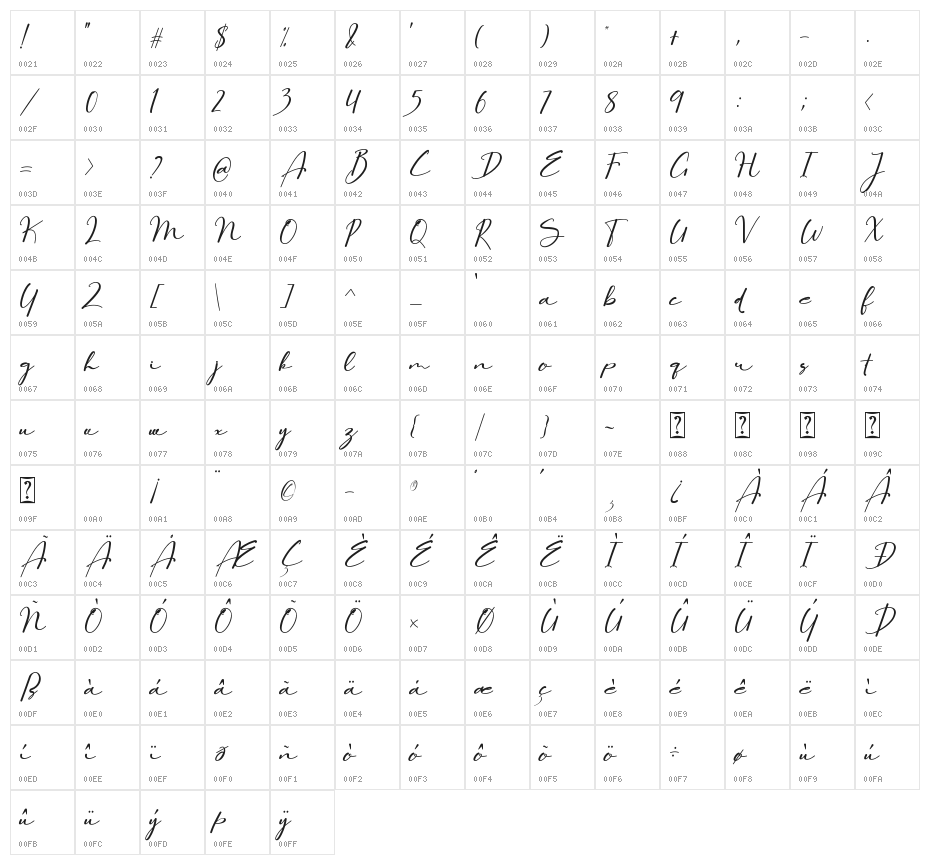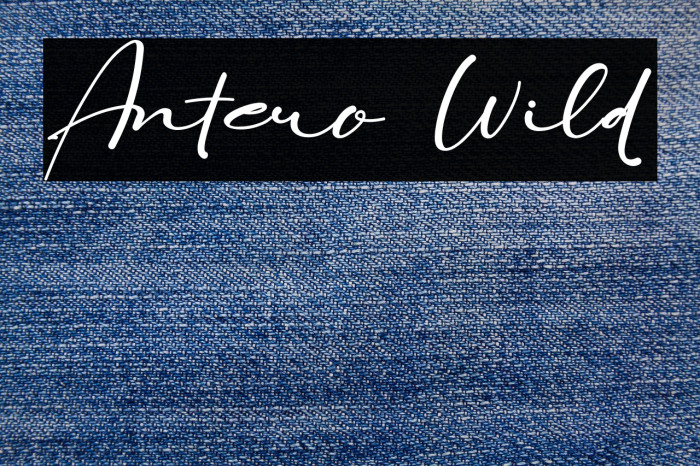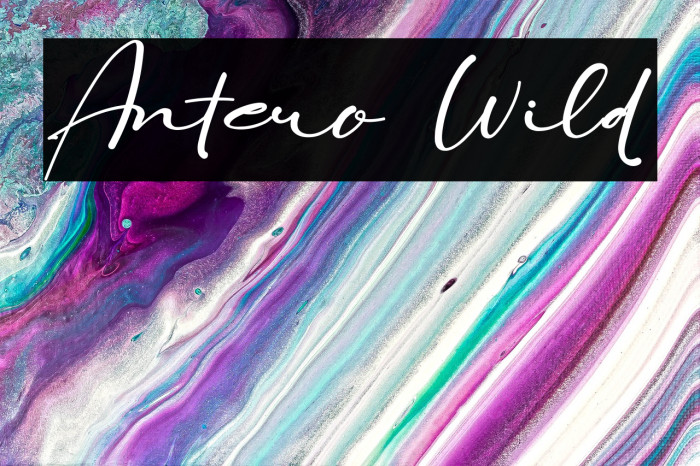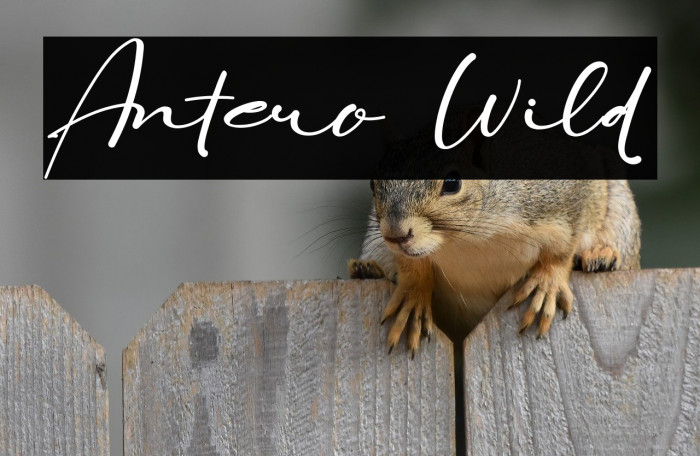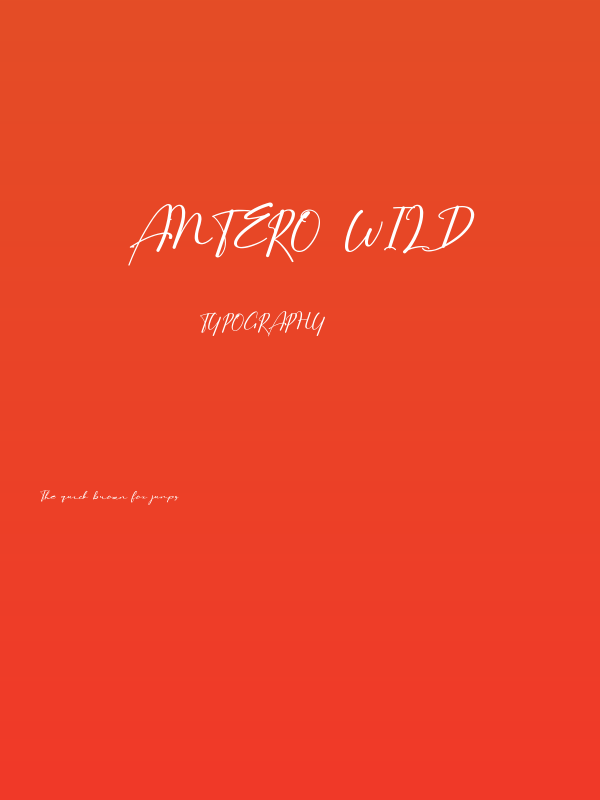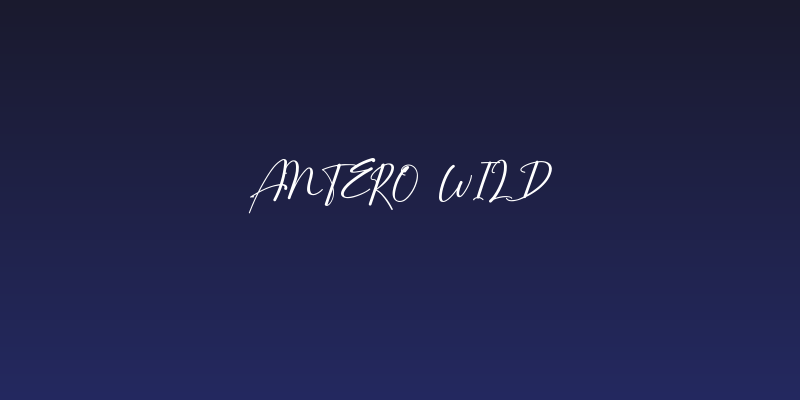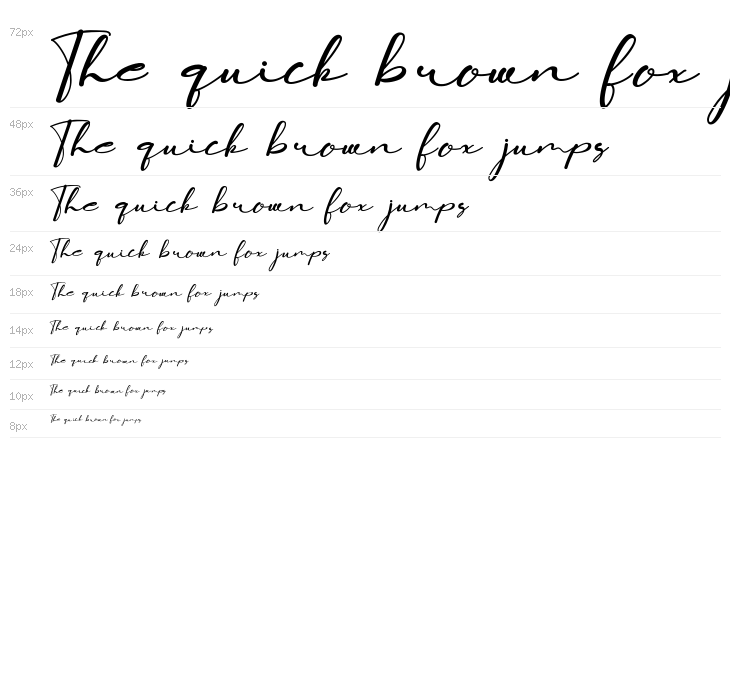
Antero Wild Font
Antero Wild Description
A flowing, elegant script font with a handwritten style, featuring smooth curves and varying line thickness.
| Proposed Projects | Wedding invitations, greeting cards, personal branding. |